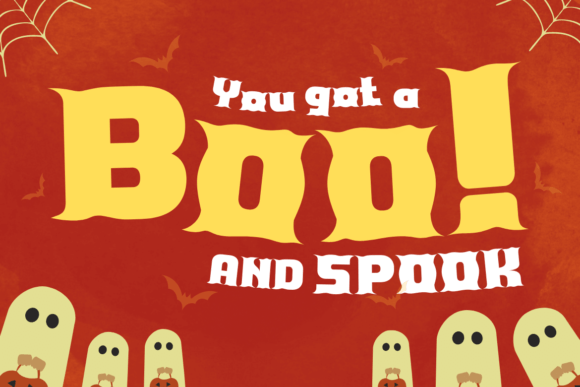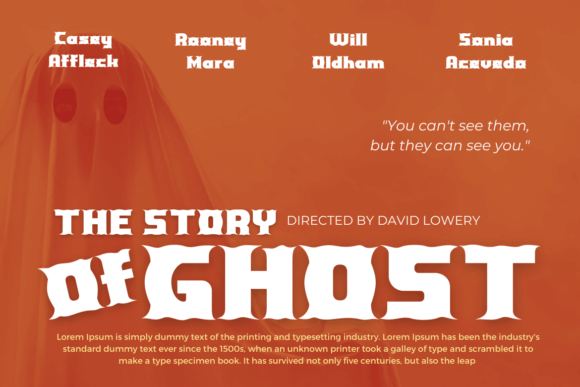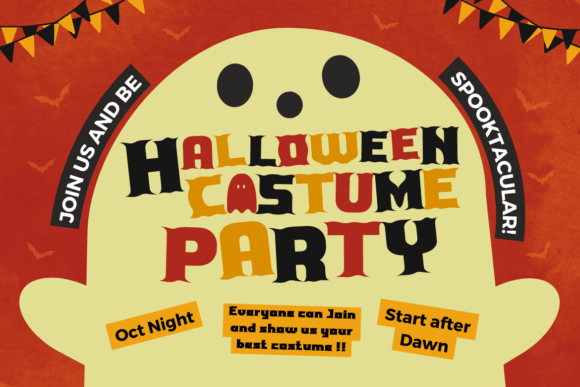
Introduction to Kehunix Font
As a designer, there’s nothing quite like the thrill of bringing a creative project to life. Whether it’s a spooky Halloween invitation or a playful party poster, the right font can make all the difference. And when it comes to capturing the essence of the season, the Kehunix Font is the perfect tool for the job.
With its hauntingly beautiful design, this free download is a must-have for any designer looking to add a touch of magic to their next creative project. From its transparent background to its high-quality design, the Kehunix Font is a versatile resource that’s sure to impress. Whether you’re working on a design project or simply looking for a fun way to express yourself, this font is sure to be a valuable addition to your design resource arsenal.
Key Features of Kehunix Font
- High-quality font with a unique, modern design suitable for creative projects.
- Designed to be versatile and adaptable, making it a great addition to any design project.
- Can be used in a variety of creative projects, from digital art to print media, due to its high-quality design and transparent background.
Honest Review: Kehunix Font
I recently came across the Kehunix Font, and I’m excited to share my thoughts on this design resource. As a designer, I’m always on the lookout for high-quality fonts to enhance my creative projects.
Here’s what works well: ✨ The Kehunix Font offers a unique, elegant aesthetic that’s perfect for a variety of design applications. The font is highly legible, even at small sizes, making it an excellent choice for body text or headings. The transparent background feature is also a plus, allowing for seamless integration with other design elements.
Some limitations to consider: ⚠️ While the Kehunix Font is free to download, the font family is relatively small, with only a few weights and styles available. This may limit its versatility in certain design projects. Additionally, the font’s unique style may not be to everyone’s taste.
Overall, I’m impressed with the Kehunix Font. It’s a great design resource for anyone looking for a high-quality, elegant font to add some sophistication to their creative project. While it may have some limitations, it’s a solid choice for designers seeking a free download.
- Highly legible font with a unique, elegant aesthetic
- Transparent background feature for seamless integration
Tips for Getting the Most Out of Kehunix Font
To get the most out of the Kehunix Font, use it on a transparent background to create a seamless design. This font is ideal for creative projects, such as branding, logos, and marketing materials. You can also download the font for free from various design resources, making it a high-quality design element for your project.
The Kehunix Font is commonly used in creative projects, such as:
- Branding and logos
- Marketing materials
- Business cards and brochures
- Infographics and presentations